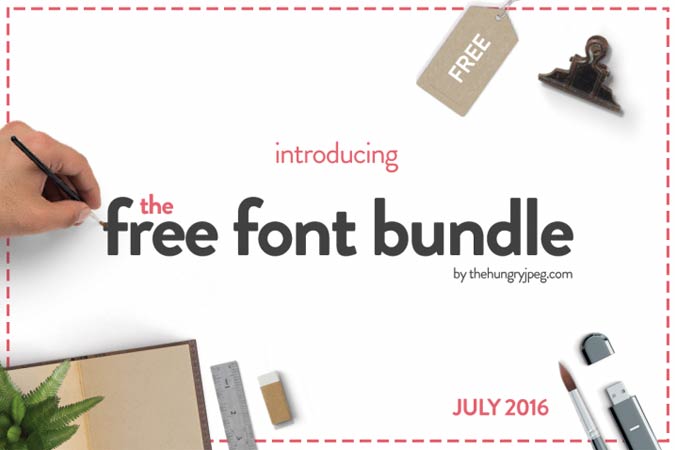
The Hungry Jpeg has come out with this awesome Free Font Bundle that you can download 43 designer fonts for free! It has a good collection of handwriting, hand-drawn fonts and also vintage looking fonts that for sure you can find a suitable font that can be applied in your next design. Head over there to download as it will expire soon!
- Designer: Various designers
- Styles: 43
- Category: Font Bundle